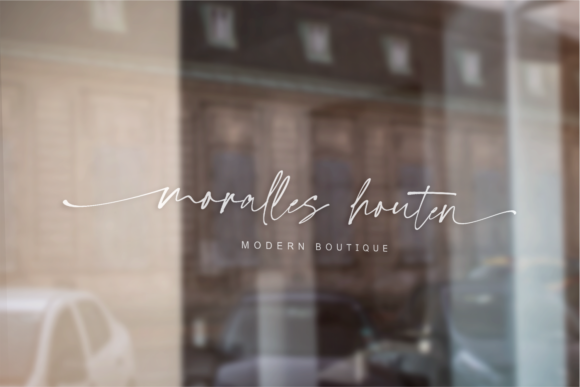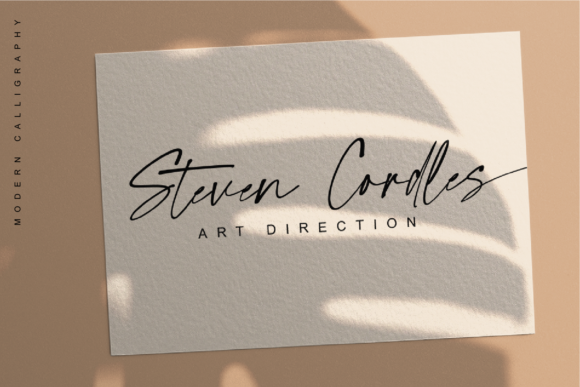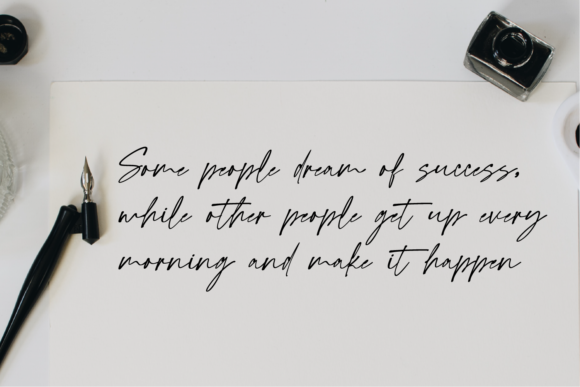
Introduction to Jollity Font
Have you ever stared at a blank canvas, feeling like the perfect design is just out of reach? That’s where the magic of typography comes in – and for designers, the right font can be the game-changer that brings a project to life. For those seeking a touch of elegance and whimsy, the Jollity Font is a game-changing addition to any creative arsenal.
This enchanting script font is more than just a pretty face – it’s a valuable design resource that can elevate even the most mundane project into a masterpiece. With its PUA encoding, accessing the intricate glyphs and swashes is a breeze, making it the perfect choice for designers who crave high-quality, unique elements to add to their work.
Key Features of Jollity Font
- High-quality, professional design suitable for creative projects and designs.
- Features a transparent background, allowing for seamless integration with any design element.
- Available in multiple sizes, including 200, 300, and 400 DPI, to cater to various design requirements.
- Unique characteristics include its playful, yet elegant style, making it perfect for creative projects and designs.
- Includes a range of characters and glyphs, including Latin and Cyrillic scripts, to support multilingual designs.
Honest Review: Jollity Font
I recently stumbled upon the Jollity Font while searching for a free download to use in a creative project. I was pleasantly surprised by the high quality of this font, which features a beautiful, playful design perfect for adding a touch of whimsy to your work.
One of the standout features of the Jollity Font is its transparent background, making it easy to use in a variety of design contexts. This feature is especially useful for designers who need to layer fonts or images, as it eliminates the risk of unwanted backgrounds getting in the way.
Here are some of the things that work well with the Jollity Font:
- ✨ Beautiful, high-quality design
- ✨ Transparent background for easy layering
However, I did encounter a few limitations with the Jollity Font:
- ⚠️ Limited character set, which may not be suitable for longer texts
- ⚠️ Not as versatile as some other fonts, which may limit its use in certain design contexts
Overall, I’m impressed with the Jollity Font and would definitely recommend it to designers looking for a high-quality, free download for their creative project. While it may have a few limitations, its unique design and transparent background make it a valuable addition to any design resource library.
How to Use Jollity Font
Design Resource Tips
For the best results, use the Jollity Font in creative projects that require a high-quality, unique font. Experiment with different font sizes, colors, and combinations to achieve the desired effect. Consider using the Jollity Font as a design resource for logos, posters, and other visual materials.
The Jollity Font is commonly used in various creative projects such as:
- Logo designs
- Poster designs
- Infographic designs
- Business card designs